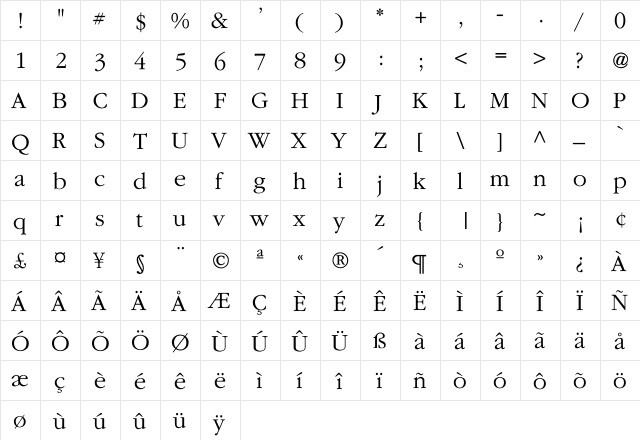
Joseph-Normal Regular
Design Context for Joseph-Normal Typeface
Joseph-Normal offers clean, dependable letterforms without strong stylistic allegiance, making it a practical choice for designers who need flexibility.